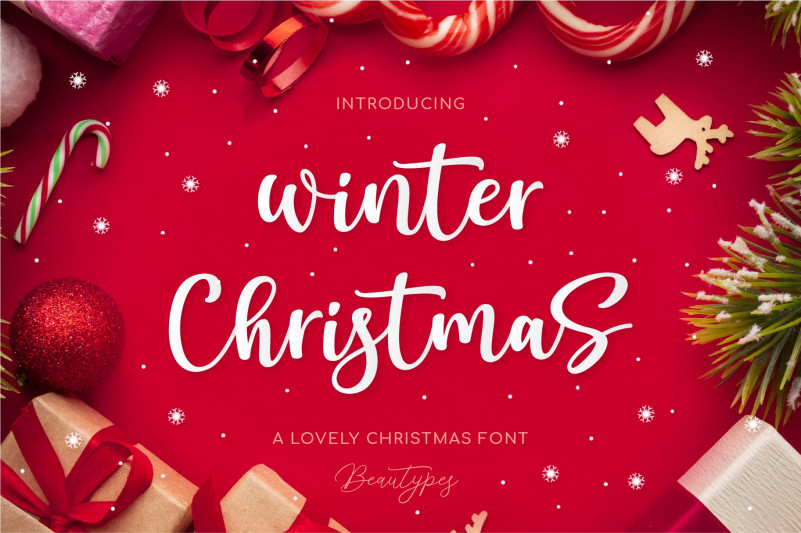
Winter Christmas Script Font
Winter Christmas is our new beautiful font with the handwritten and script style make this font looks elegant, natural, stylish .
Winter Christmas would perfect for invitation, logos & branding , photography, advertisements, watermark, social media posts, product packaging, product designs, label, wedding designs, stationery, special events or anything that need handwriting taste.
Winter Christmas font comes with +350 glyphs (Alternate & Ligature). The alternative characters were divided into several Open Type features such as Swash, Stylistic Sets, Stylistic Alternates, Contextual Alternates. The Open Type features can be accessed by using Open Type programs such as Adobe Illustrator, Adobe InDesign, Adobe Photoshop Corel Draw X version, And Microsoft Word. And this Font has given PUA unicode (specially coded fonts). so that all the alternate characters can easily be accessed in full by a craftsman or designer.